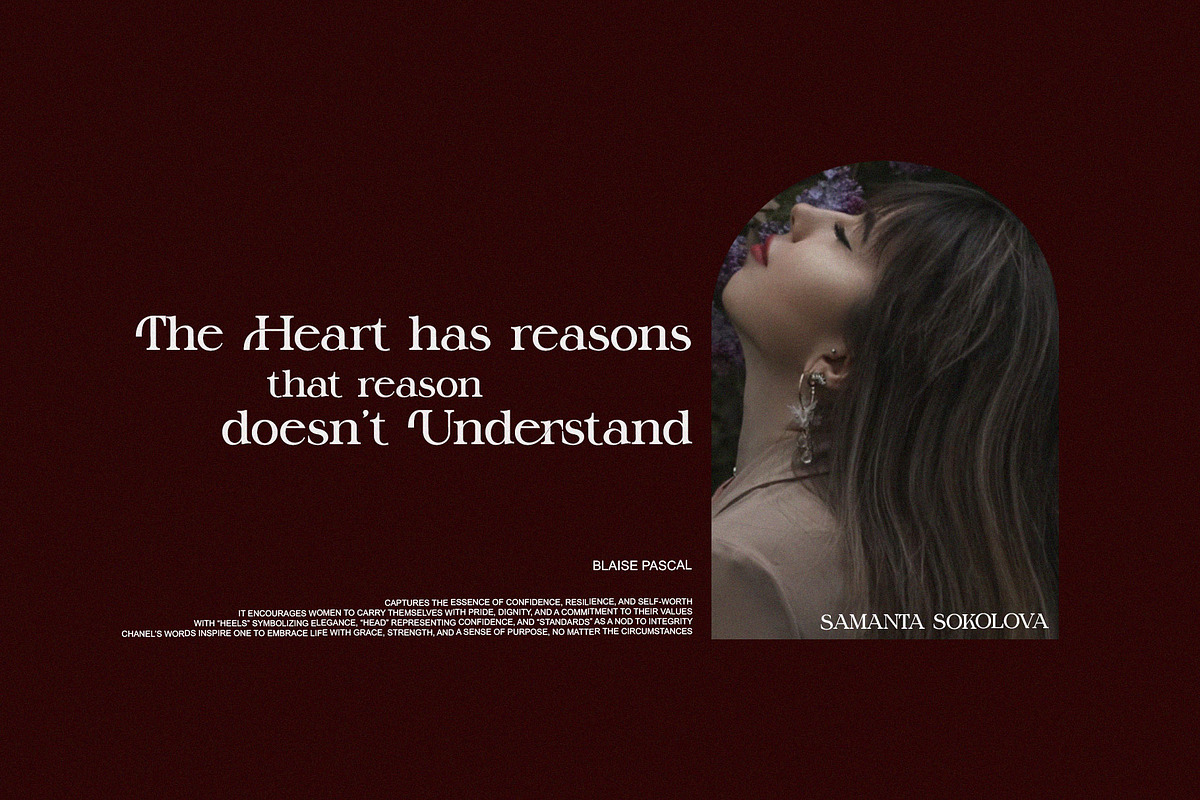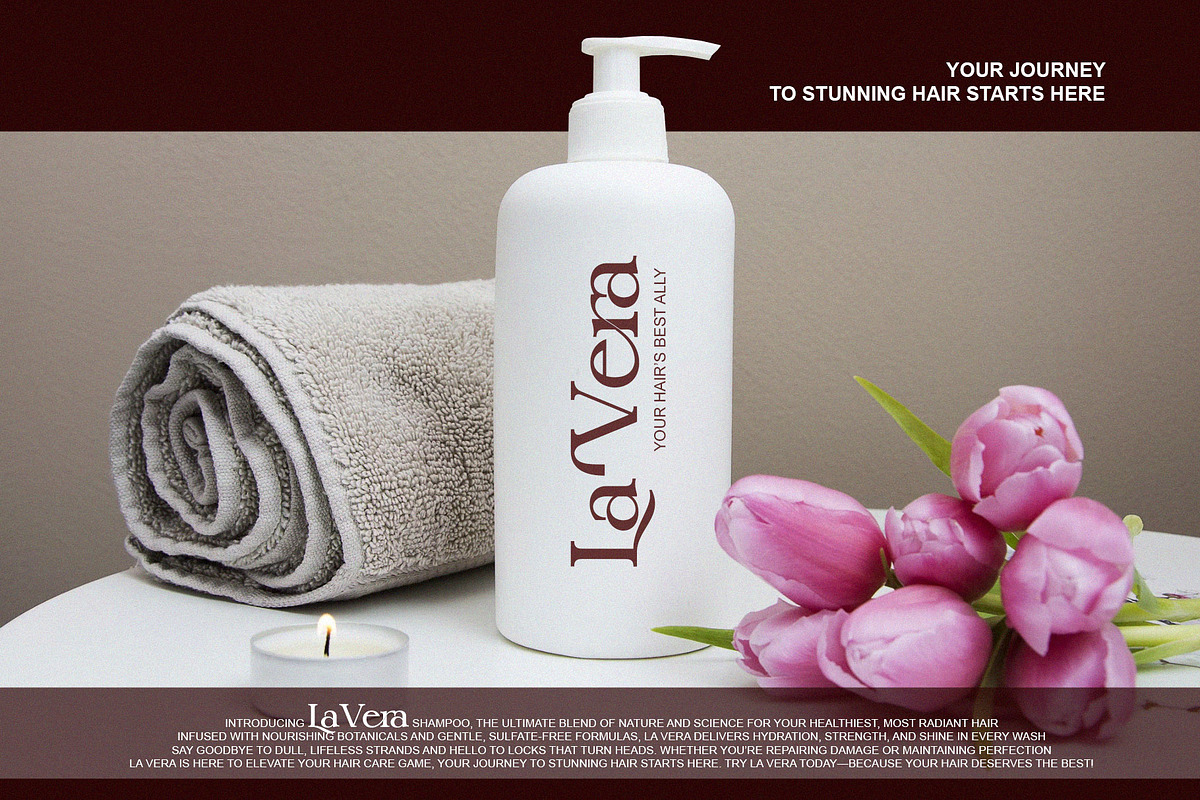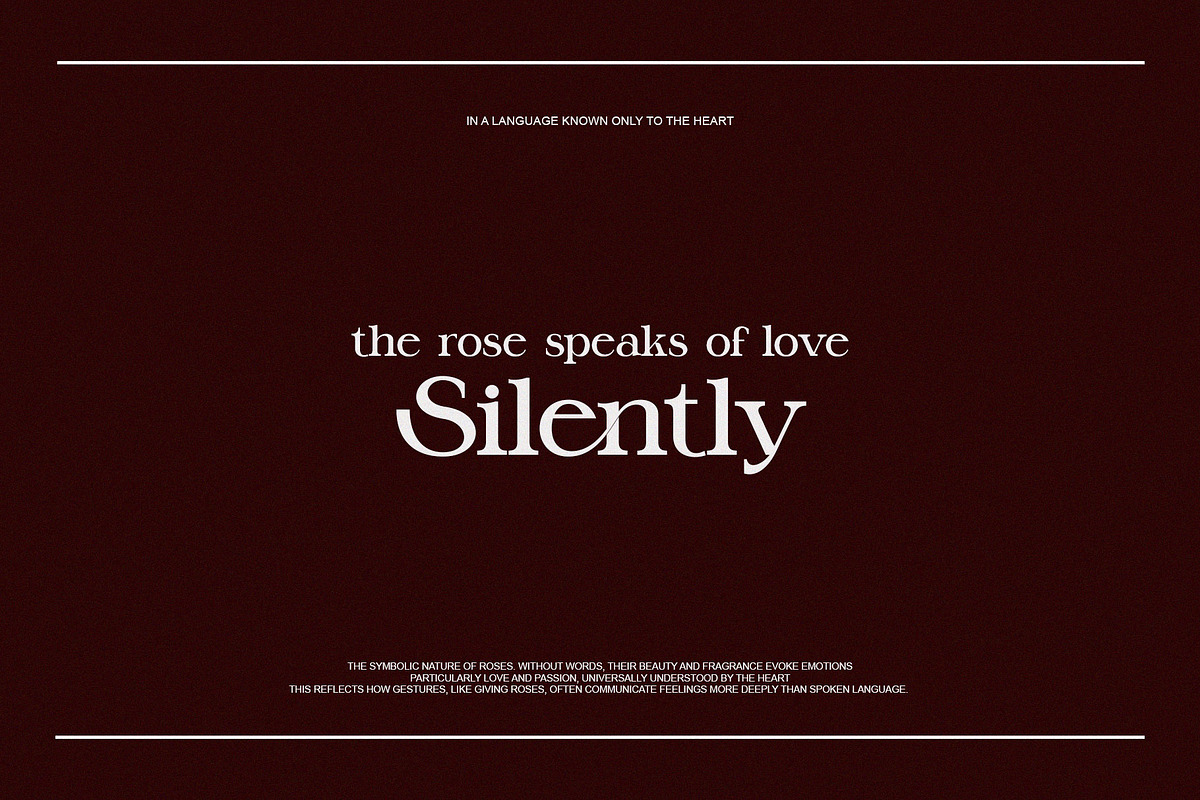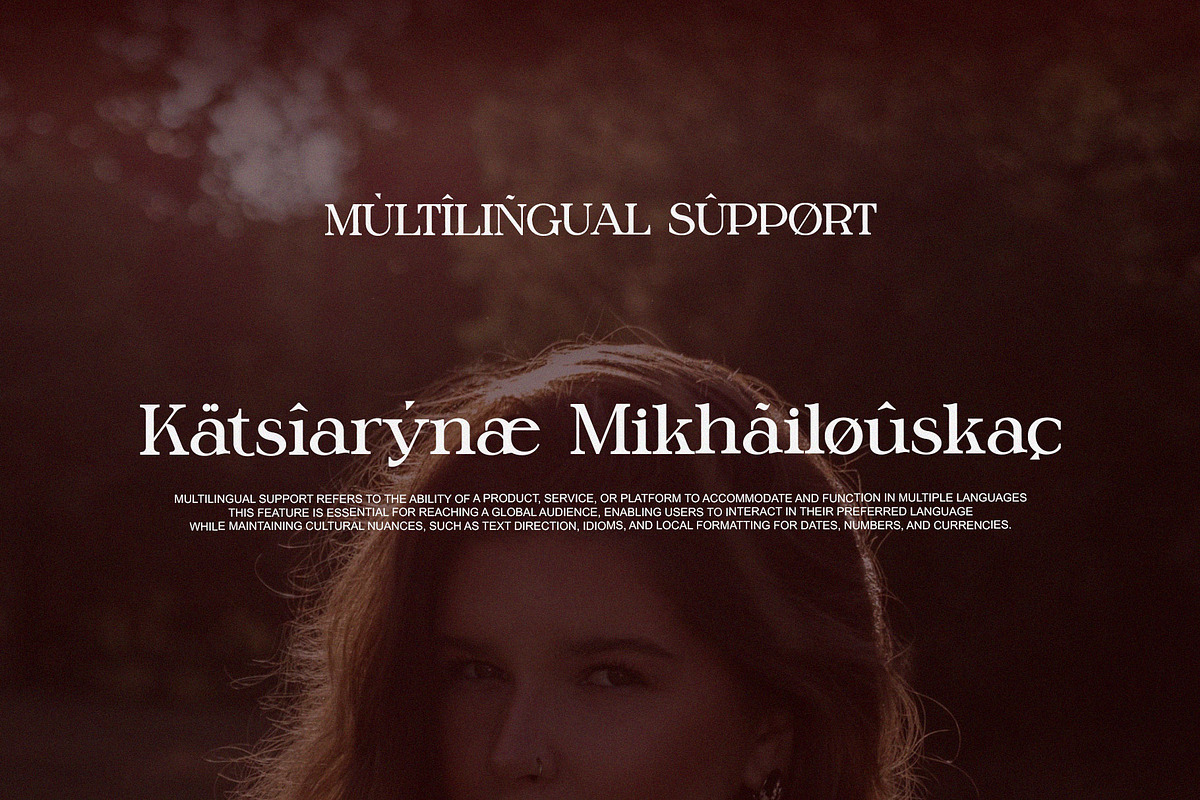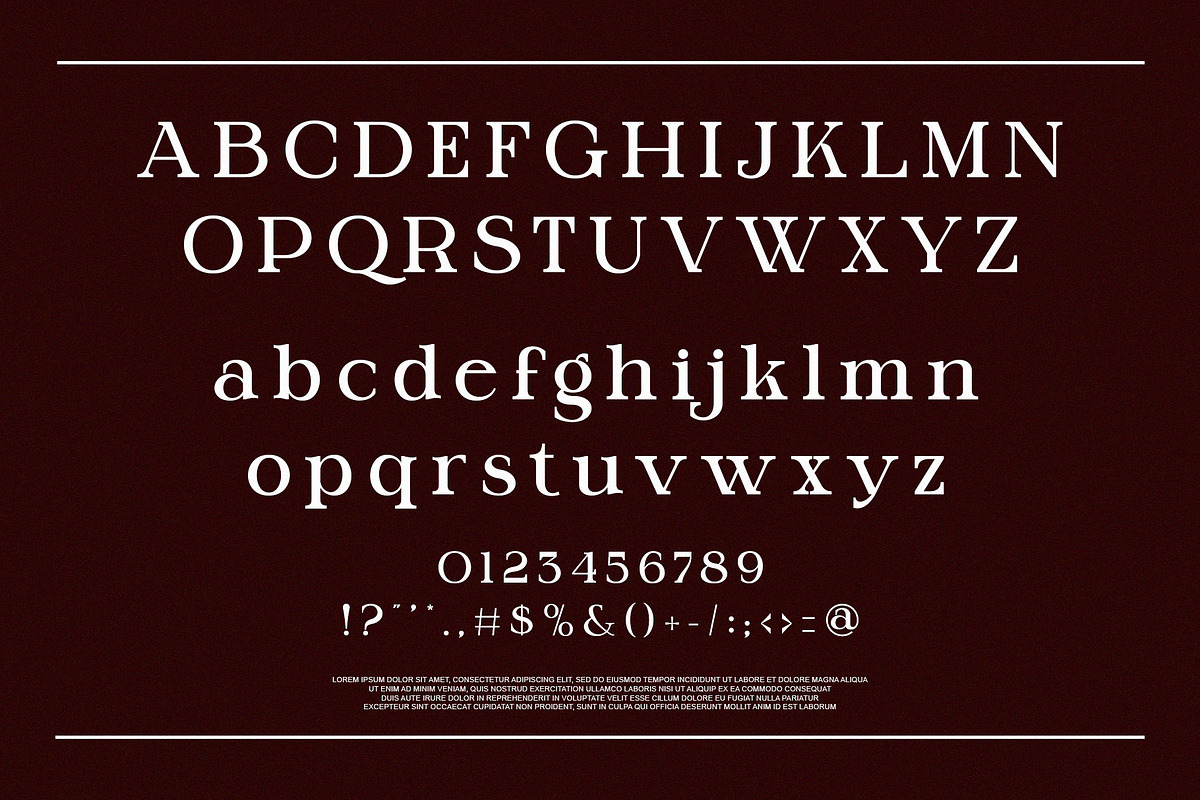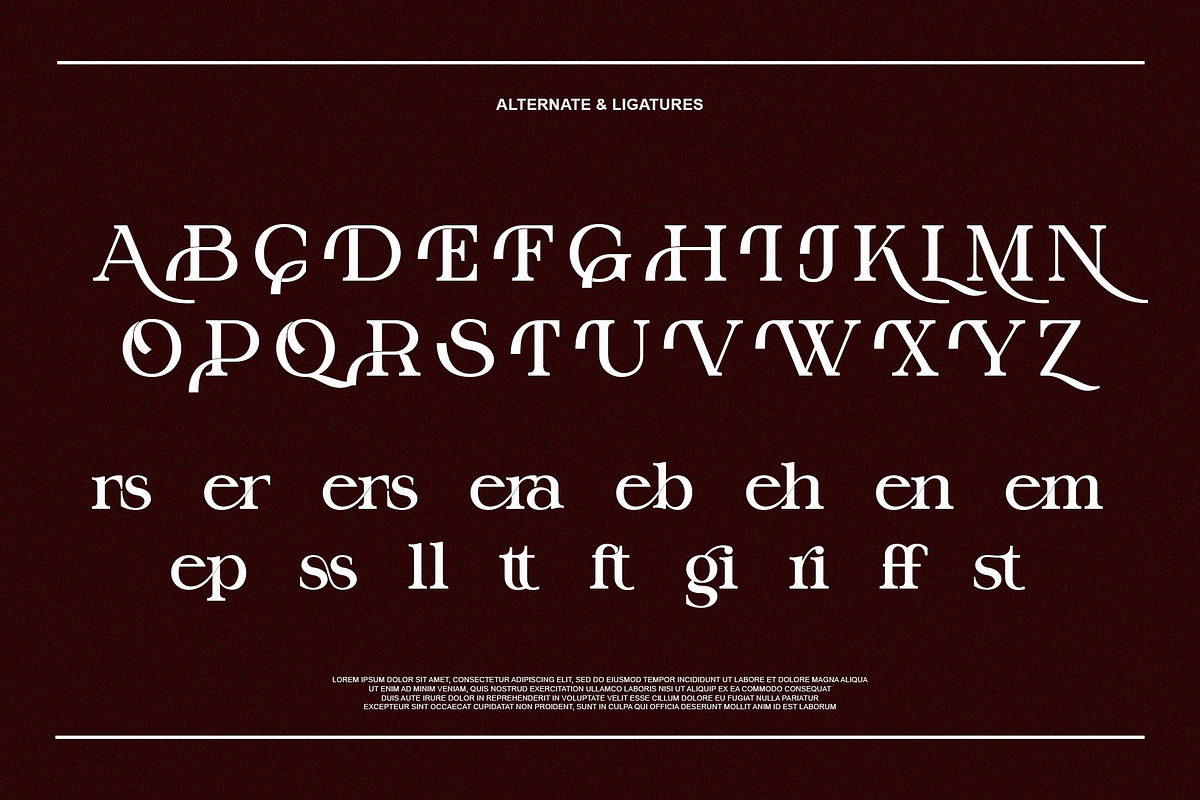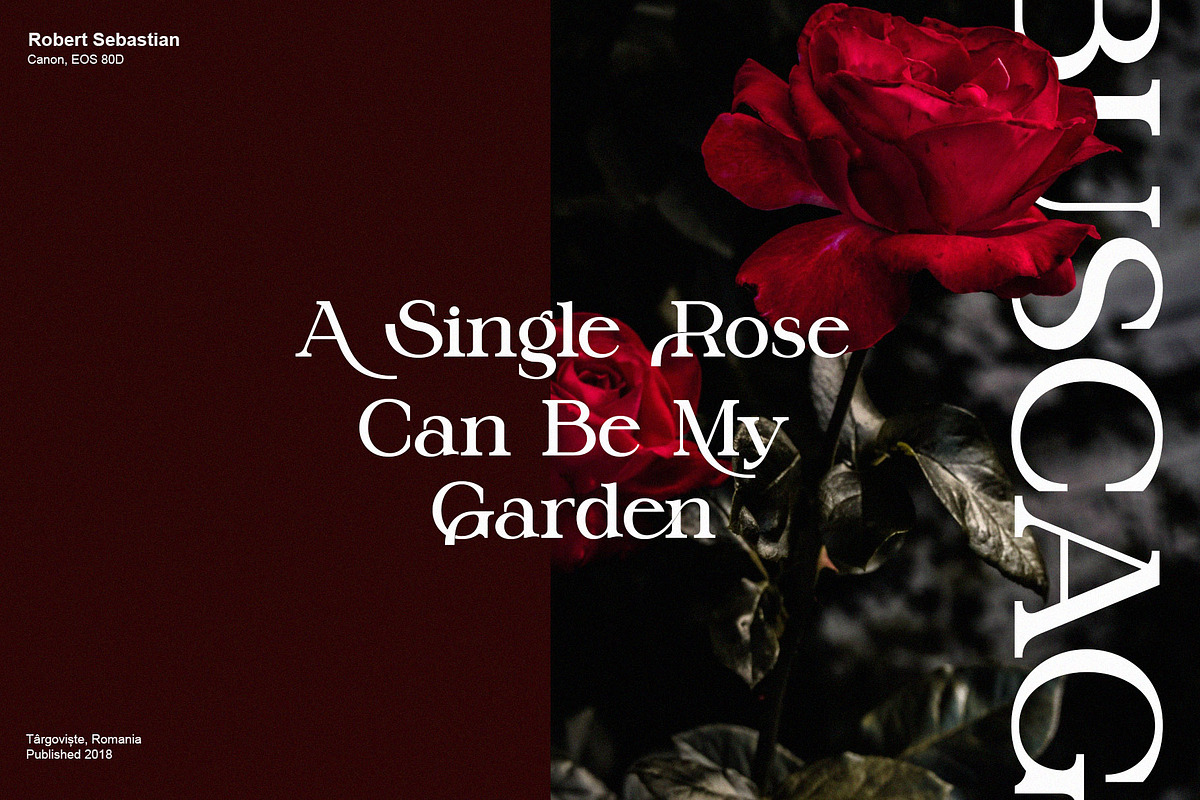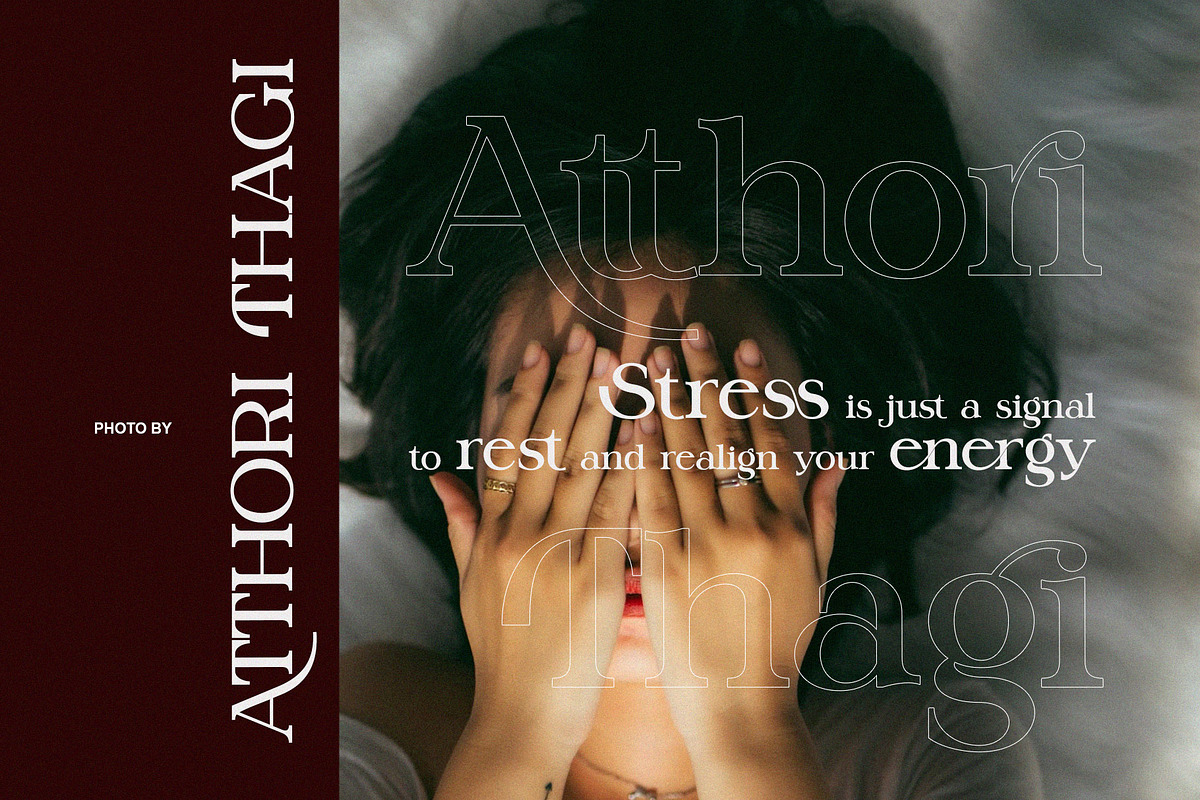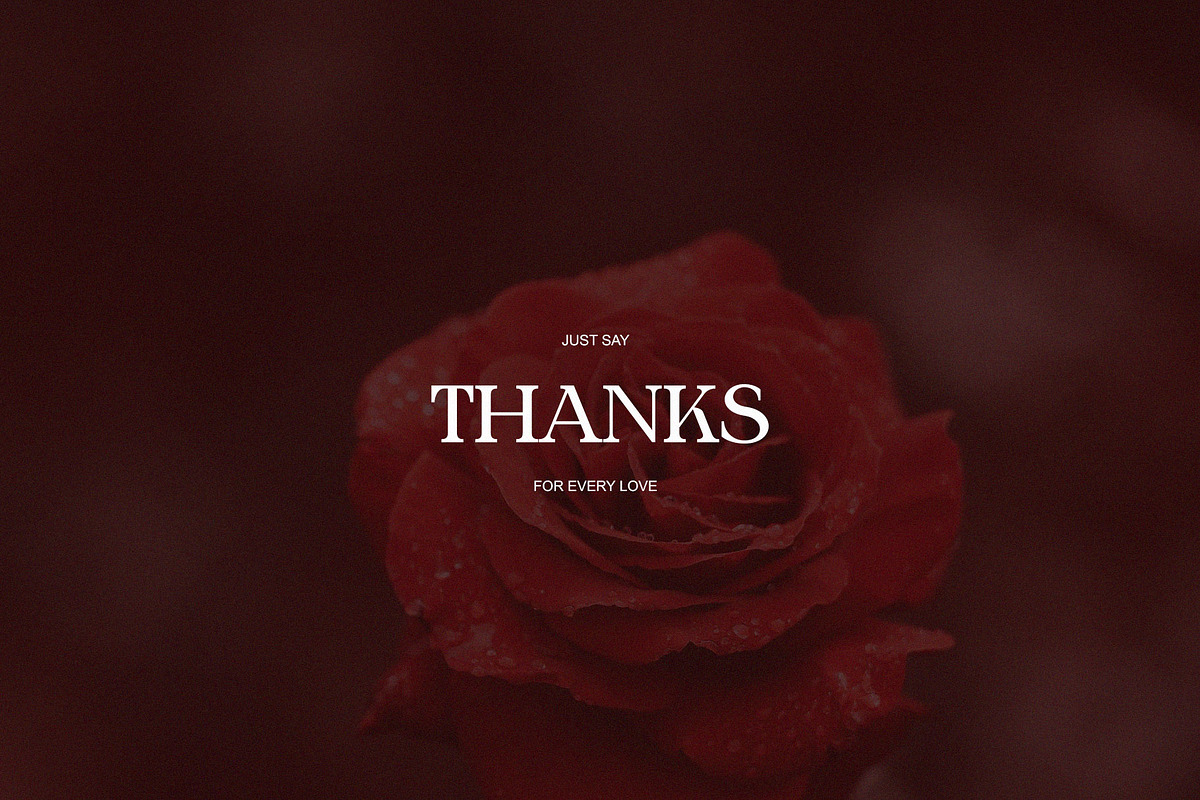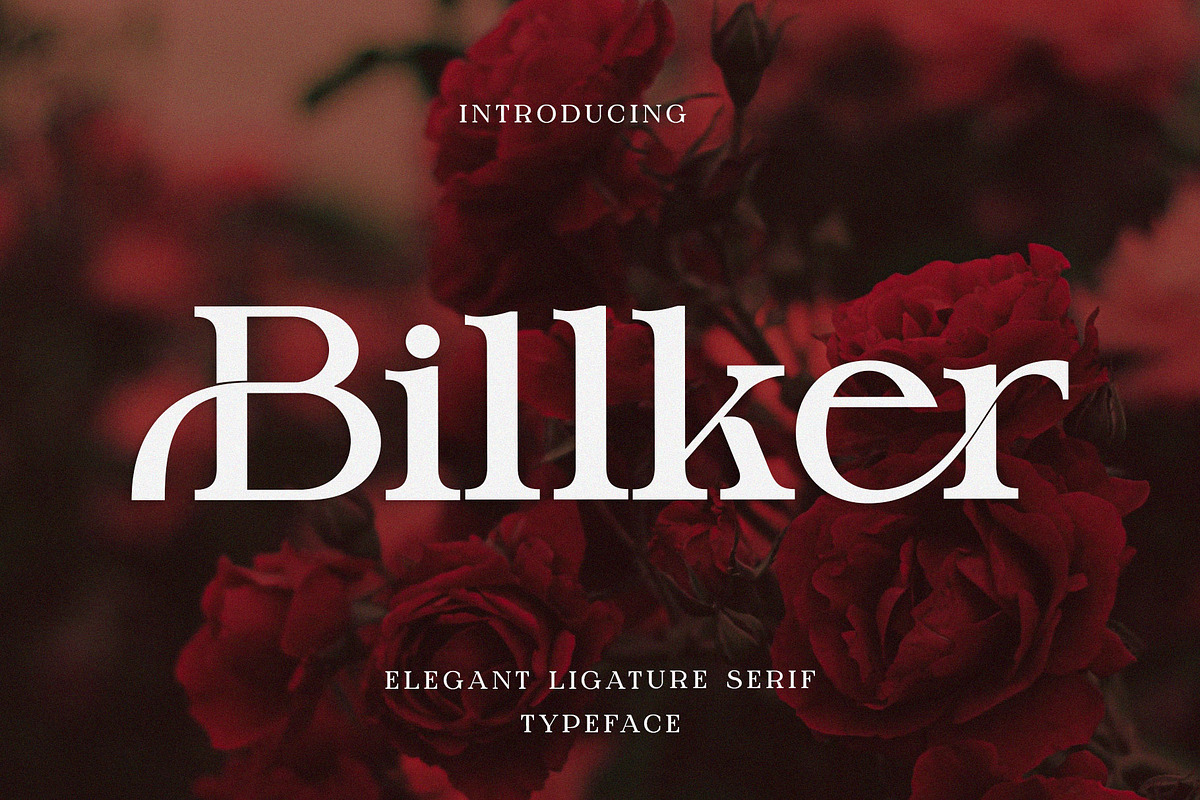
Billker Elegant Ligature Serif
Introducing Billker, a serif modern and elegant font that captures a sense of freedom and natural beauty. Inspired by soft, rolling landscapes and golden hues, Billker is a font that feels both grounded and graceful. With its fluid ligatures and balanced curves, this typeface brings an effortless elegance to any design. Whether you're creating feminine branding or adding a delicate touch to your typography, Billker is the perfect choice for those who value both simplicity and style.